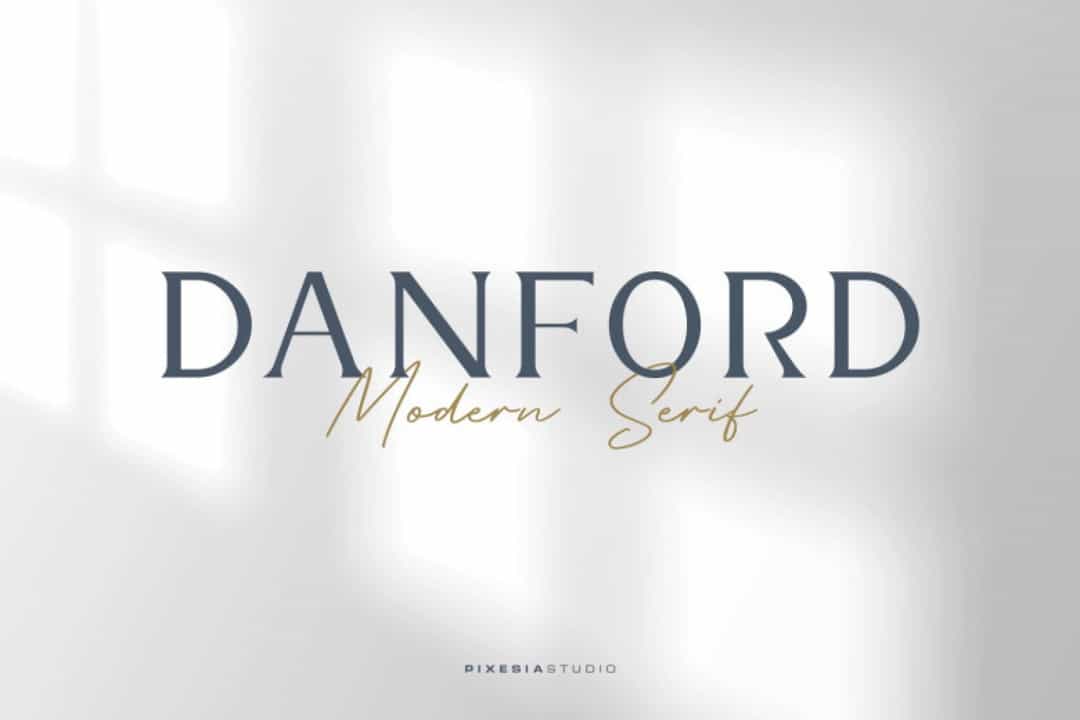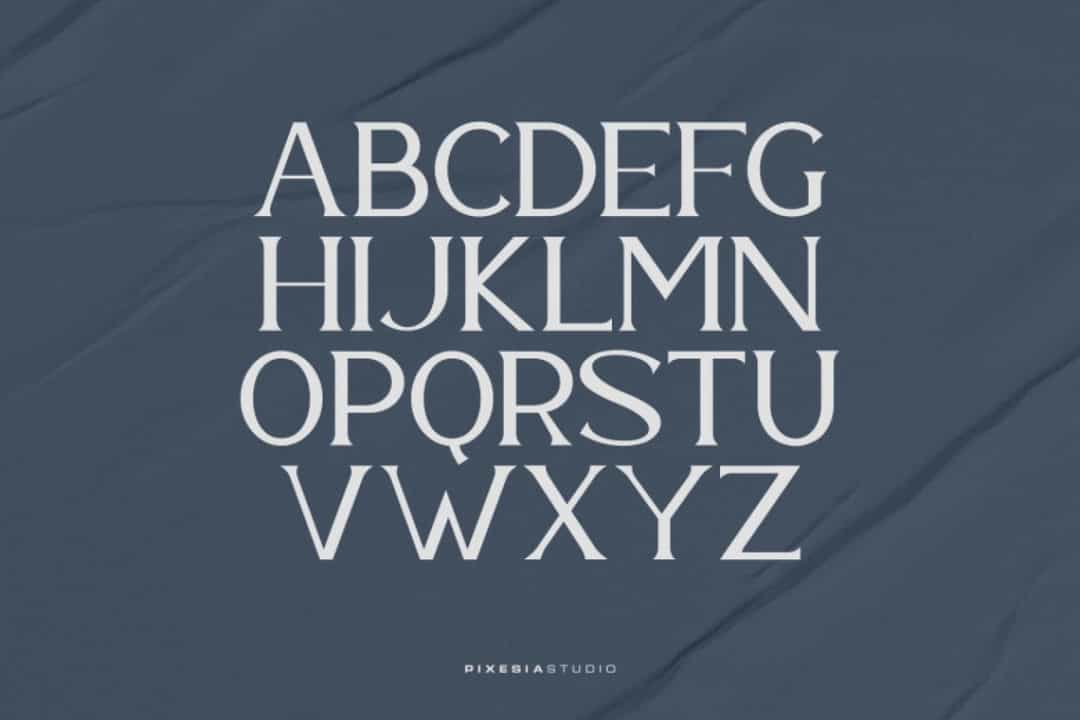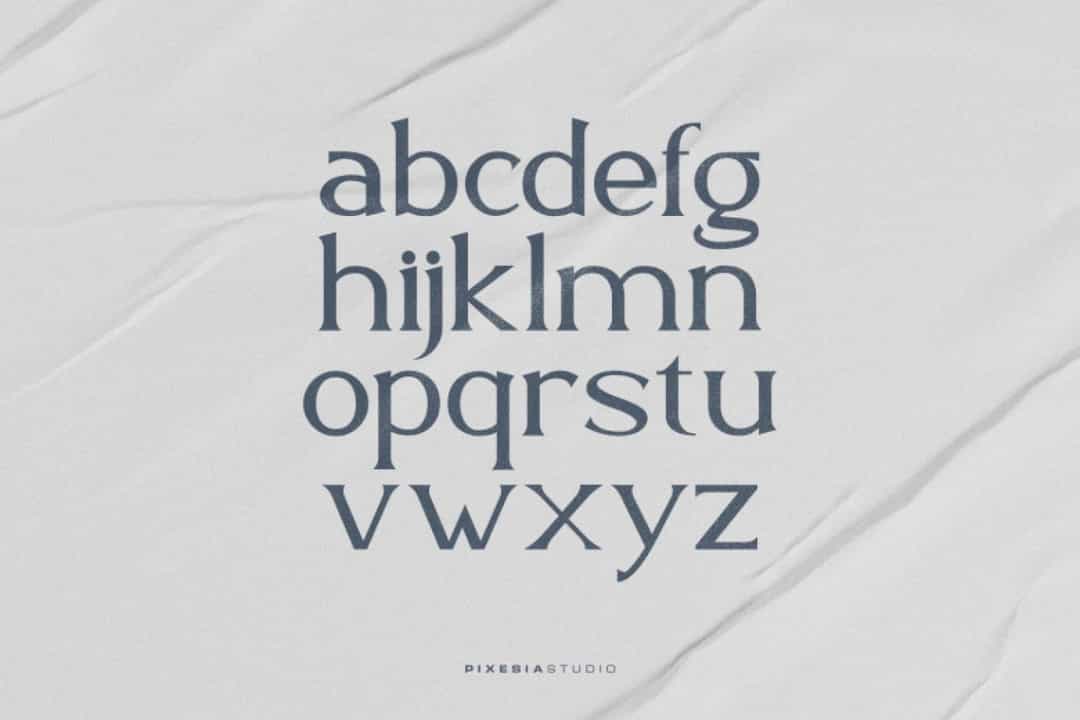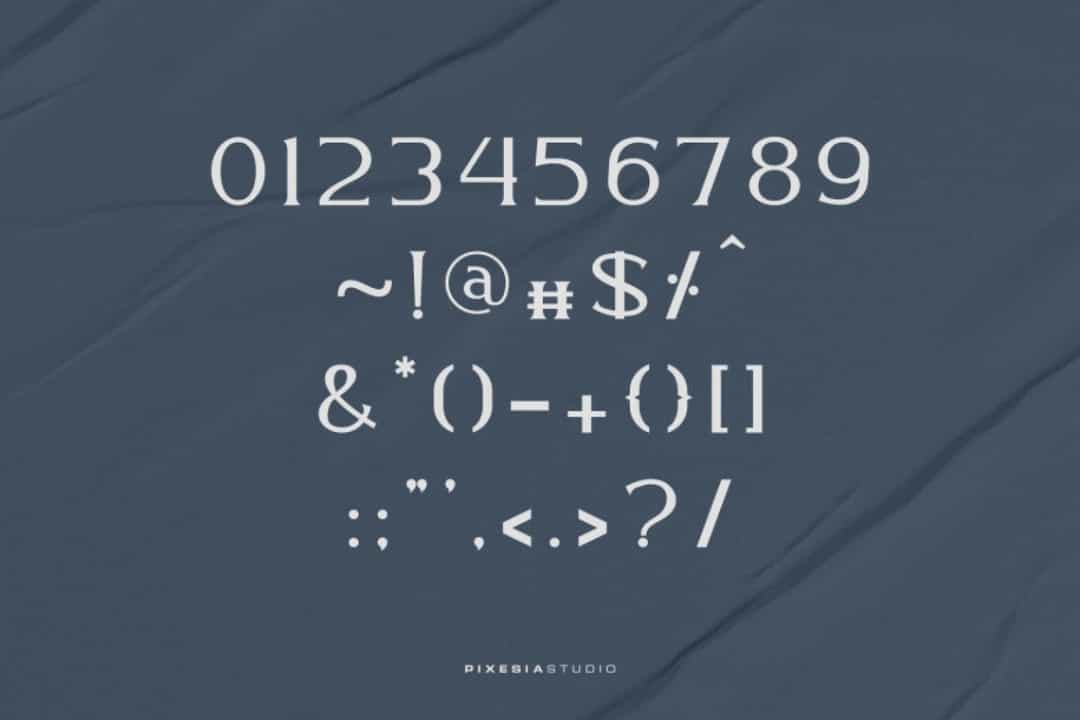
Danford Font is a modern show serif font designed to add modernity and elegance to your writing. Danford can help give products luxurious and sophisticated looks. Danford is a semi-bold type font designed with sharper lines than its counterpart, making it more accessible. Because of this, Danford makes for an ideal font to use in headlines, logos, labels or any other writing that requires emphasizing.